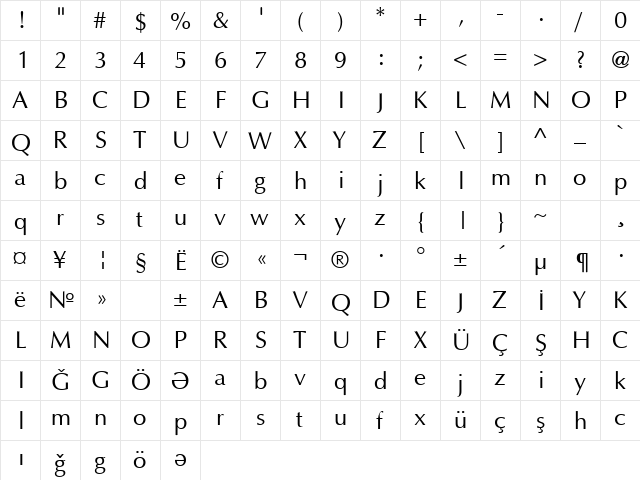
AaaOptimaAL Regular
Design Context for AaaOptimaAL Typeface
AaaOptimaAL takes a measured approach to typography — its balanced proportions and neutral character make it a reliable workhorse for both digital and print work.